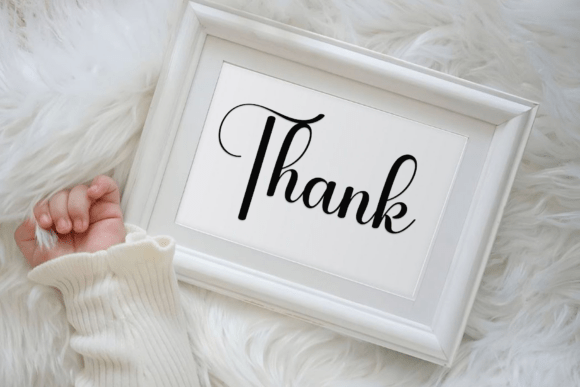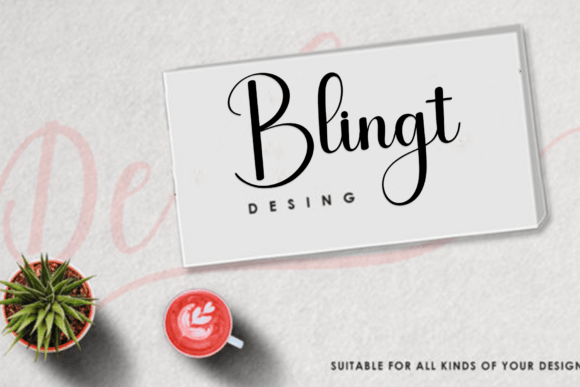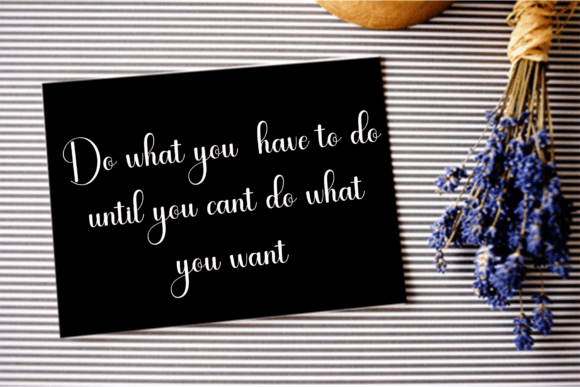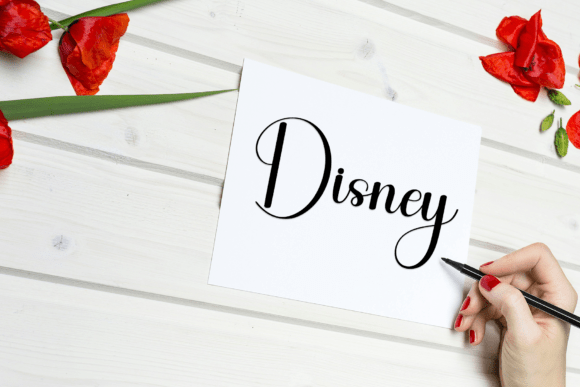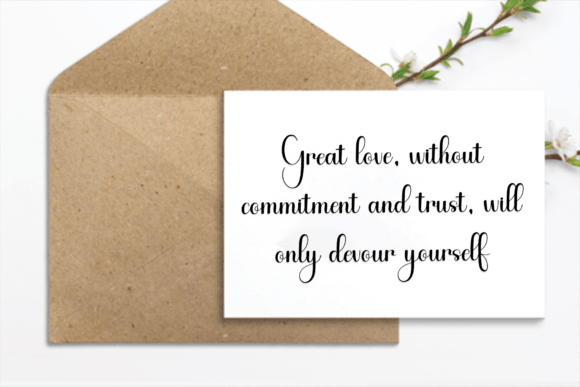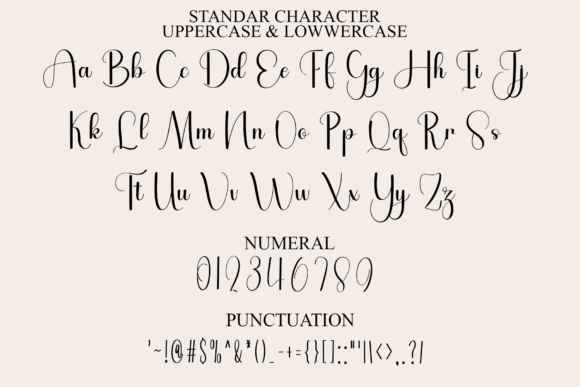
Honeymoon Amsterdam Font – Free Download
Introduction to Honeymoon Amsterdam Font
Honeymoon Amsterdam is a festive and merry typeface that captures the spirit of the holiday season.
Key Features of Honeymoon Amsterdam Font
Why Choose Honeymoon Amsterdam Font?